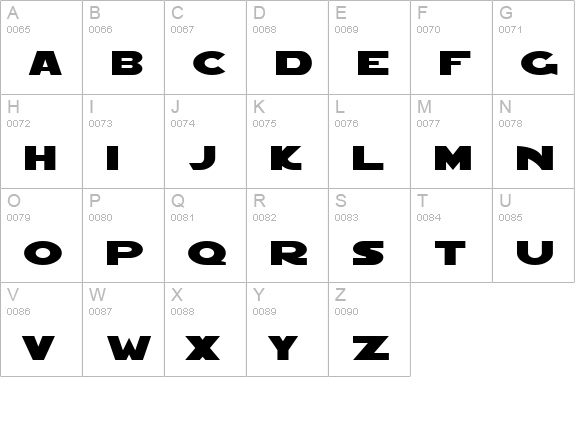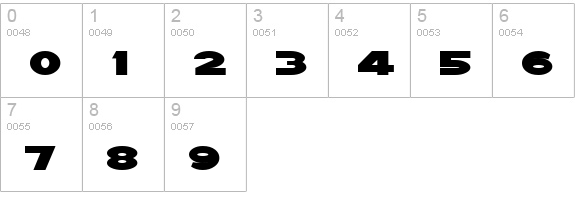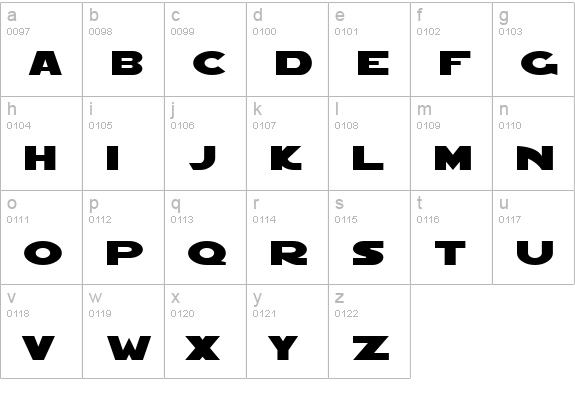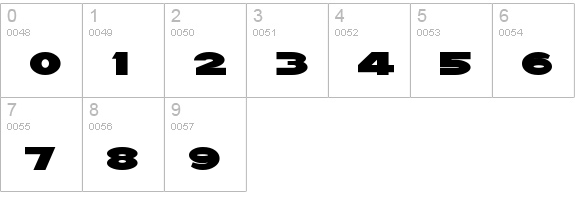
RedFive Font Details
Introducing RedFive, a captivating and versatile font that effortlessly combines modernity with timeless elegance. This unique typeface is crafted with meticulous attention to detail, resulting in a beautifully balanced design that will elevate any project to new heights. RedFive boasts a distinct personality, exuding confidence and sophistication while remaining approachable and inviting. Its sleek lines and subtle curves create a harmonious rhythm, making it perfect for a wide range of applications - from branding and logos to headlines, invitations, and everything in between. What sets RedFive apart is not only its impeccable design but also its accessibility. This exceptional font is freely available to download at FontsMarket.com, allowing designers and creatives of all backgrounds to showcase their talent without any limitations. Whether you're a professional designer or a hobbyist, RedFive is the perfect tool to add a touch of class and sophistication to your next project. With a broad range of weights and styles, RedFive offers endless possibilities for customization. Whether you prefer a bold and eye-catching look or a more refined and subtle approach, this font has you covered. Its versatility ensures that it can seamlessly adapt to any design concept or aesthetic, making it a reliable choice for any project. In addition to its aesthetic appeal, RedFive also promises excellent legibility, even at small sizes. This makes it an ideal choice for body text, ensuring that your message is effortlessly conveyed to your audience with clarity and ease. RedFive is more than just a font – it's a statement. It's a testament to the power of design and the endless possibilities it holds. With its impeccable craftsmanship, accessibility, and versatility, RedFive is a must-have addition to any designer's toolkit. So why wait? Download RedFive today for free at FontsMarket.com and let your creativity soar to new heights.